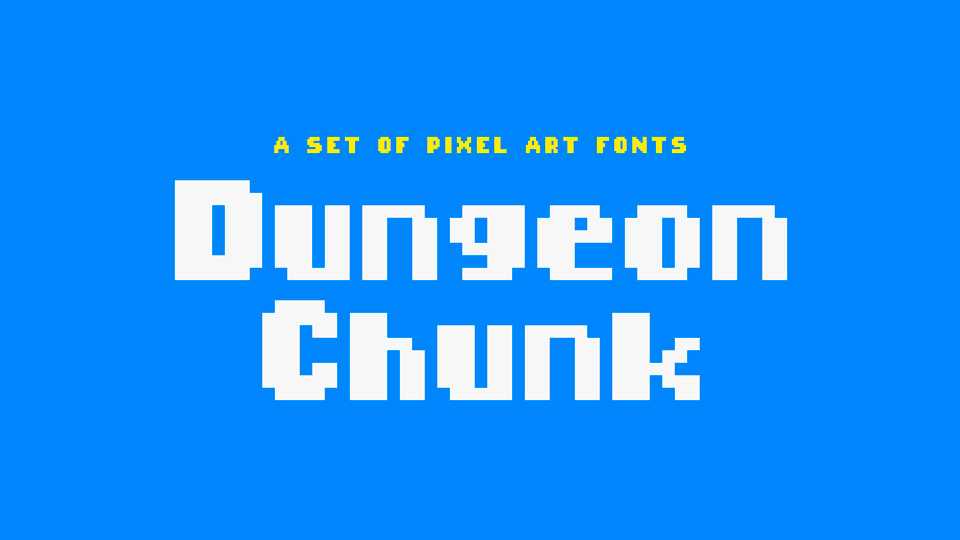
Download Dungeon Chunk typeface, a set of pixel art fonts designed for pixel perfect UI. Dungeon Chunk also works for posters, games, web design, branding, illustrations, badges and some other works.